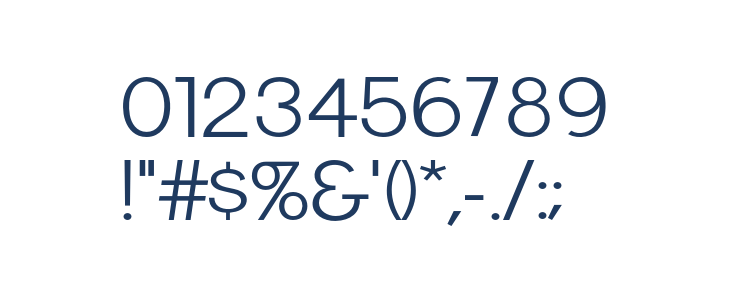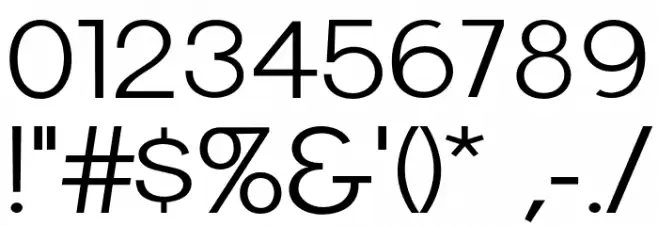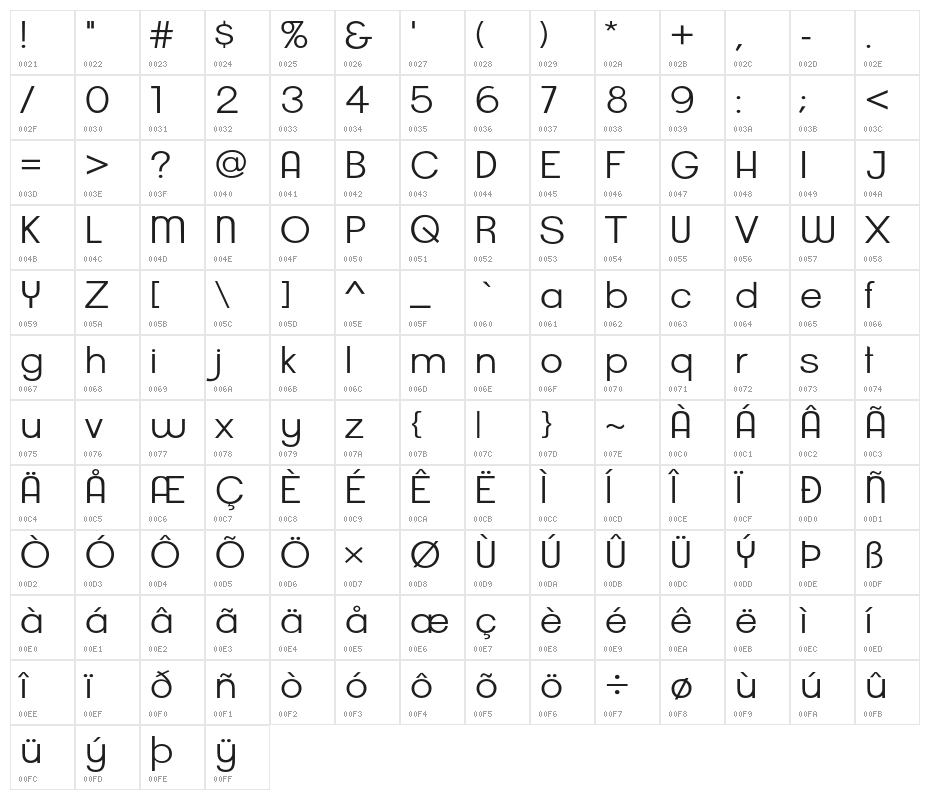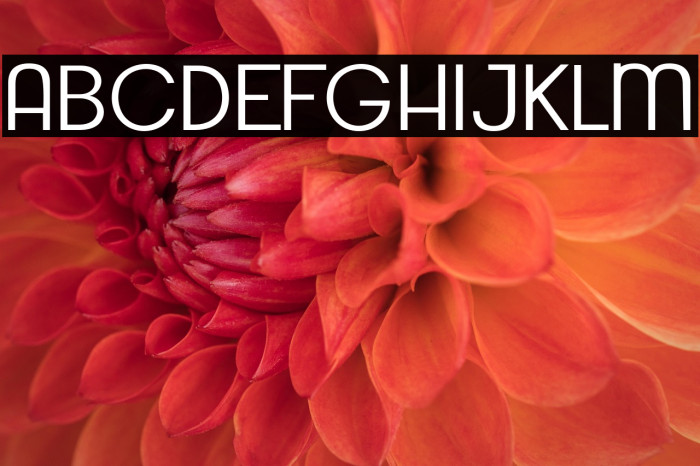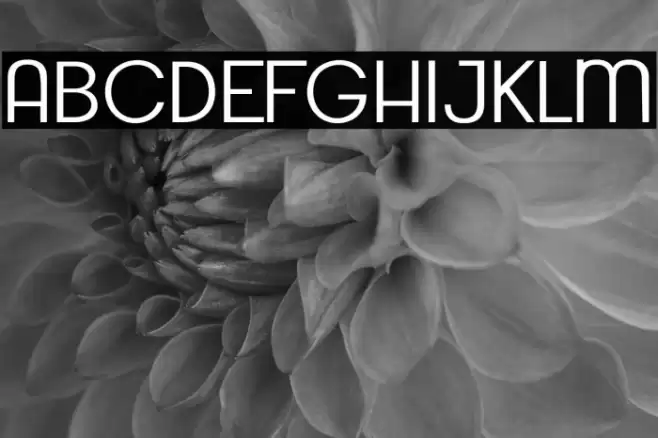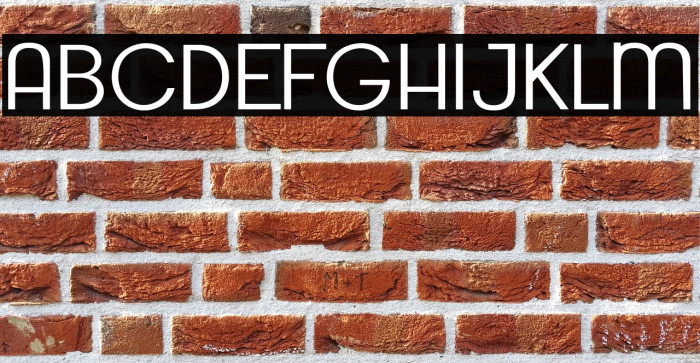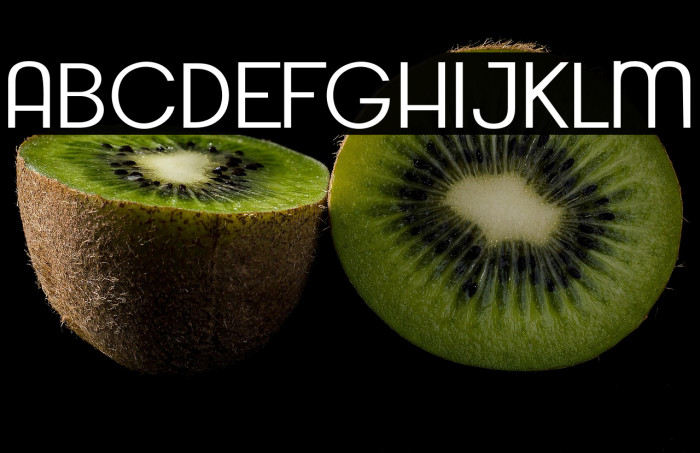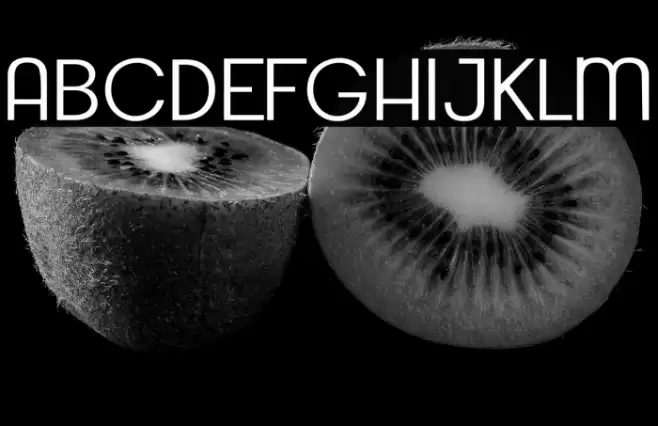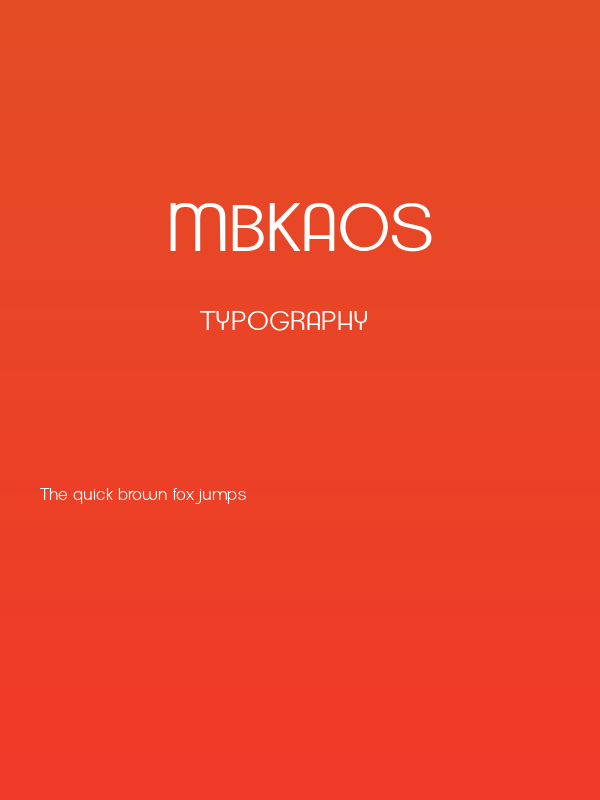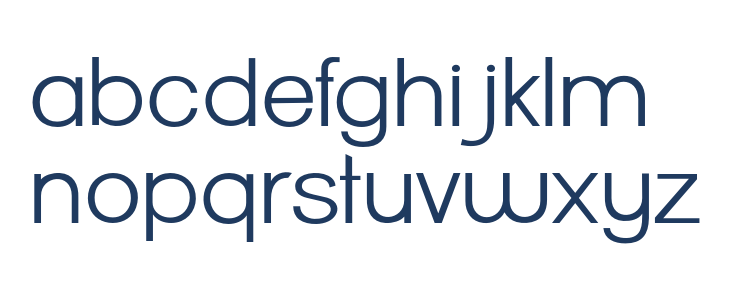
Mbkaos Font
Mbkaos Description
This font features a clean and modern sans-serif design, characterized by its rounded edges and uniform stroke width. The letters are evenly spaced, providing a balanced and harmonious appearance. The uppercase and lowercase letters maintain a consistent style, with a slight geometric influence that adds to its contemporary feel. The numerals are clear and legible, matching the overall aesthetic of the alphabet. Special characters are well-integrated, maintaining the font's sleek and minimalistic design. This font is versatile, suitable for a wide range of applications from digital to print media.